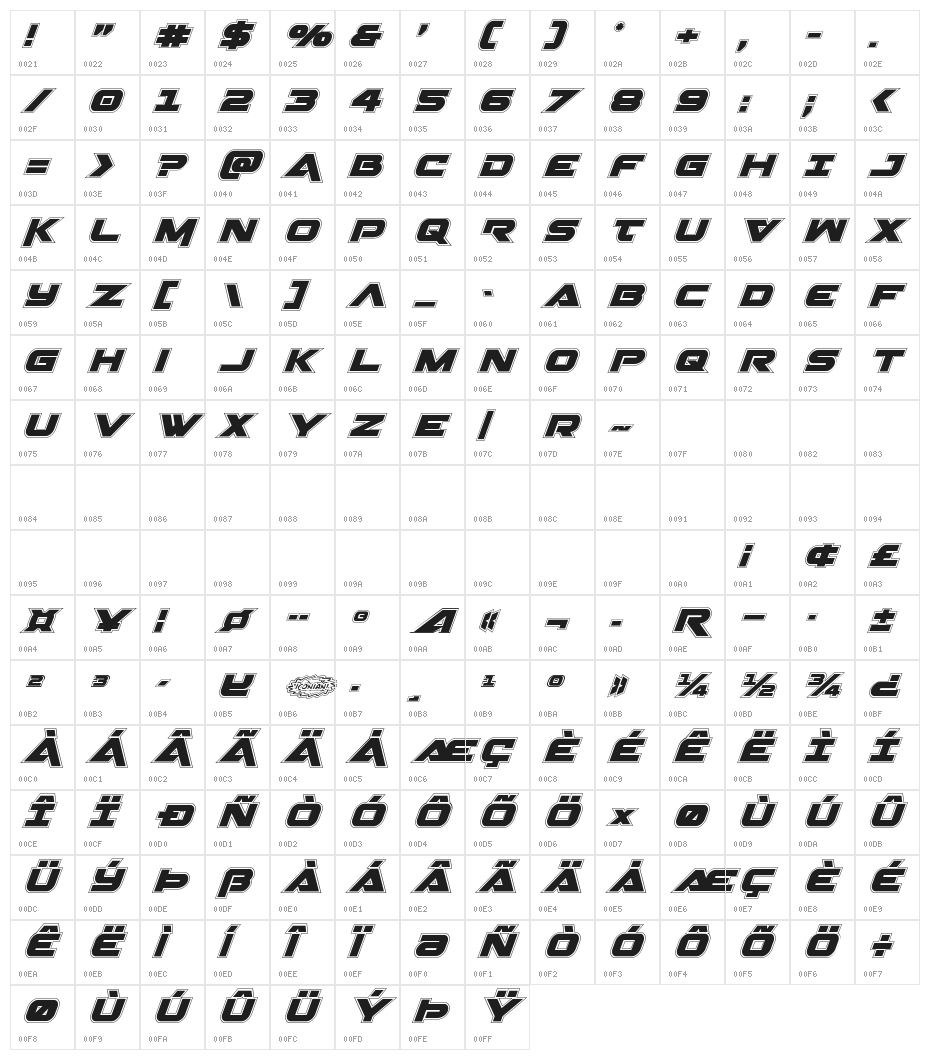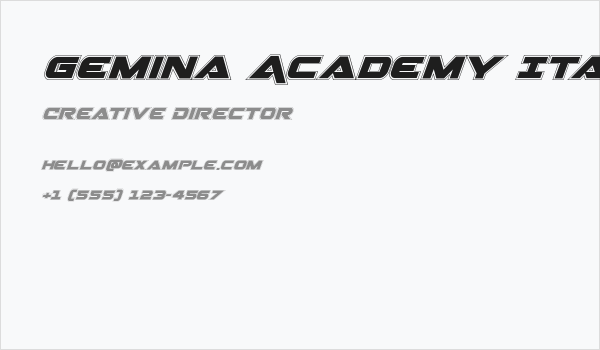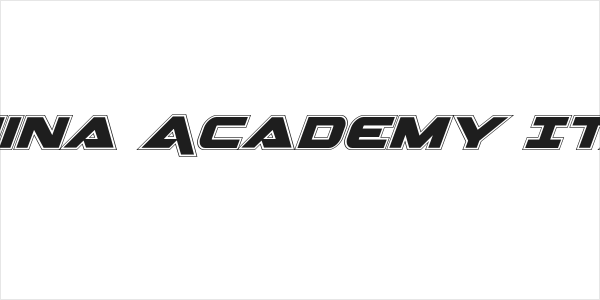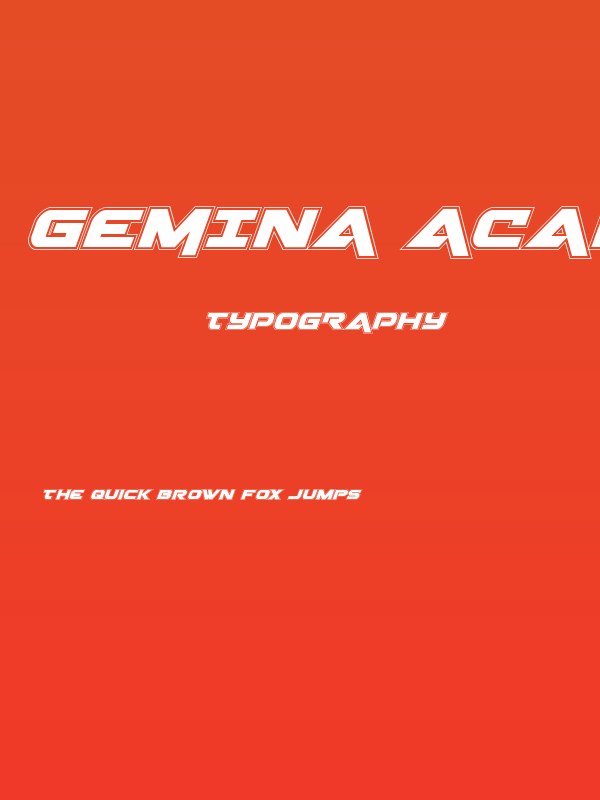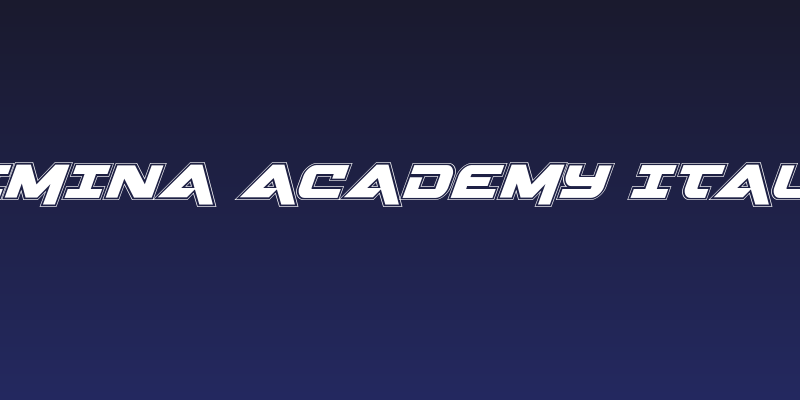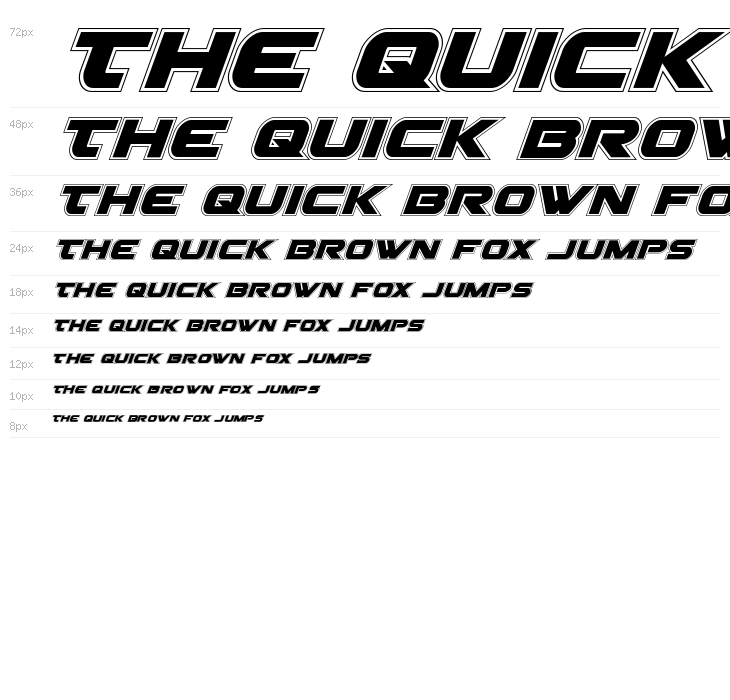
Gemina Academy Italic Font
Gemina Academy Italic Description
This font features a bold, italicized style with a futuristic and dynamic appearance. The characters are designed with sharp angles and a sense of movement, giving them a strong presence. The uppercase and lowercase letters maintain a consistent style, with the uppercase being slightly more pronounced. Numbers and special characters follow the same design principles, ensuring uniformity across all elements. The font's boldness and italic slant make it ideal for attention-grabbing headlines and modern design projects.
Proposed ProjectsIdeal for sci-fi themed designs, sports branding, video game titles, and modern advertising.